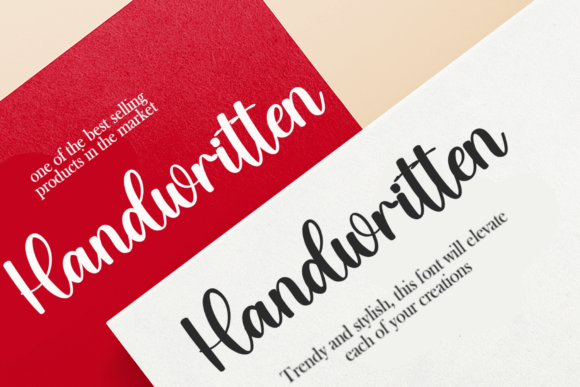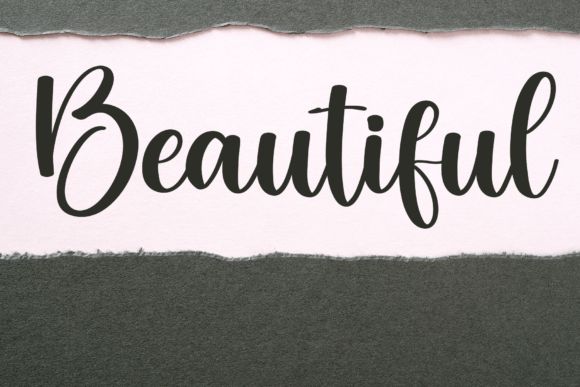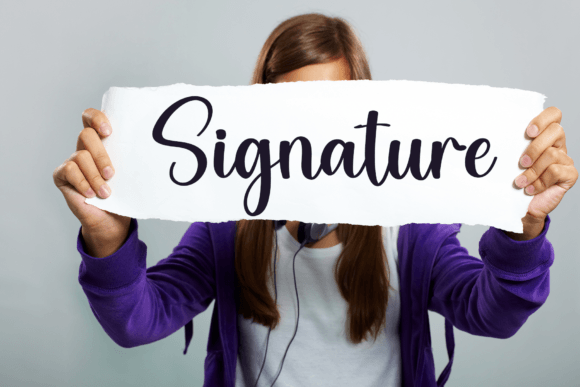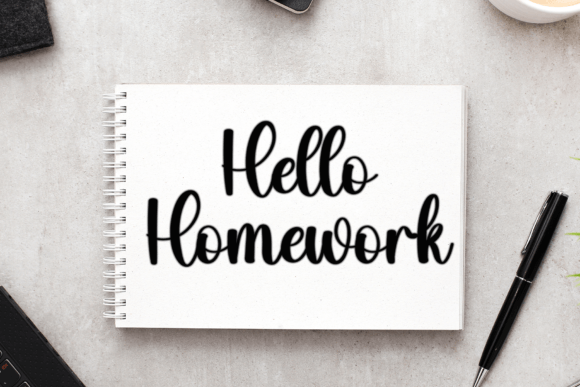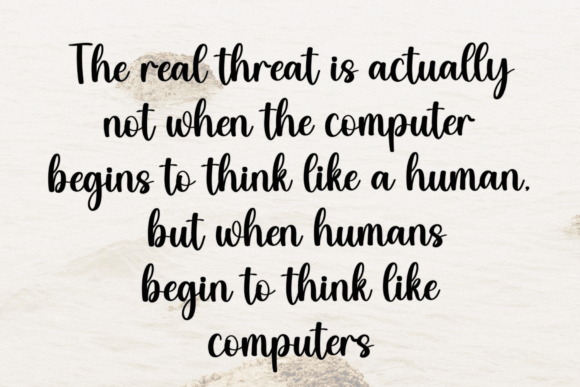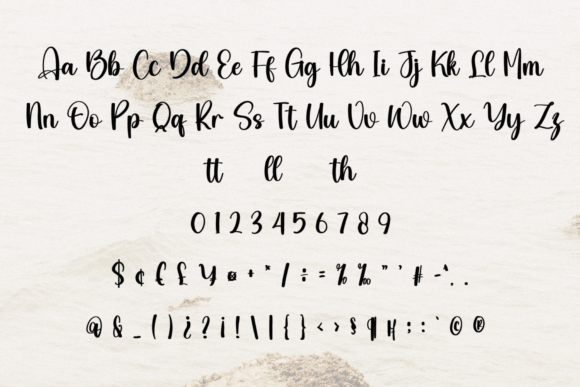
Introducing Bright Font: Elevate Your Design with a Touch of Luxury
Bright Font is a stunning, sweet, and beautiful handwritten font that can add a dash of sophistication and elegance to any design project. Its unique feature of characters dancing along the baseline sets it apart from other fonts, making it a perfect choice for designers and crafters looking to create something truly special.
The Charm of Bright Font
Bright Font boasts a distinctive, handcrafted feel that exudes luxury and refinement. The way its characters seem to dance along the baseline gives it a playful yet sophisticated vibe, making it ideal for a wide range of design projects, from branding and packaging to wedding invitations and digital marketing materials.
Key Features of Bright Font
- Handwritten Elegance: Bright Font is meticulously crafted to mimic the fluidity and expressiveness of handwritten text, bringing a personal touch to your designs.
- Unique Baseline Flow: The font’s signature feature is the way its characters dance along the baseline, creating a dynamic and visually appealing effect.
- Luxury Appeal: Bright Font’s sophisticated look makes it perfect for high-end branding, luxury packaging, and premium products.
- Versatility: Whether you’re working on a digital project or a print design, Bright Font adapts seamlessly, ensuring your work stands out.
Use Cases for Bright Font
Bright Font’s versatility means it can be used in a multitude of design projects, including:
- Branding and Logos: Create a memorable brand identity with a logo that exudes elegance and sophistication.
- Wedding and Event Invitations: Add a touch of luxury and romance to your invitations, making the event feel more special.
- Packaging Design: Elevate your product packaging with a font that communicates luxury and high quality.
- Digital Marketing: Use Bright Font in your digital ads, social media posts, and website to create a cohesive and premium brand image.
Why Choose Bright Font?
In a world where design trends are constantly evolving, Bright Font offers a timeless elegance that won’t go out of style. Its unique character and luxury appeal make it a valuable asset for any designer or crafter looking to create distinctive and memorable designs.
Tips for Using Bright Font Effectively
- Pair with Neutrals: Bright Font shines when paired with neutral backgrounds or complementary fonts, allowing its unique features to take center stage.
- Experiment with Colors: While Bright Font looks stunning in black or dark colors, don’t be afraid to experiment with different colors to match your brand’s palette.
- Play with Sizes: The font’s elegance is preserved at various sizes, but be mindful of legibility when using it for body text or smaller elements.
Bright Font is more than just a font; it’s a design element that can transform your projects with its sweet and beautiful handwritten style. Its luxury appeal, unique baseline flow, and versatility make it an indispensable tool for designers and crafters aiming to create stunning and memorable designs. Whether you’re working on a high-end brand campaign, a special event invitation, or a personal craft project, Bright Font is sure to add that extra spark of elegance and sophistication.